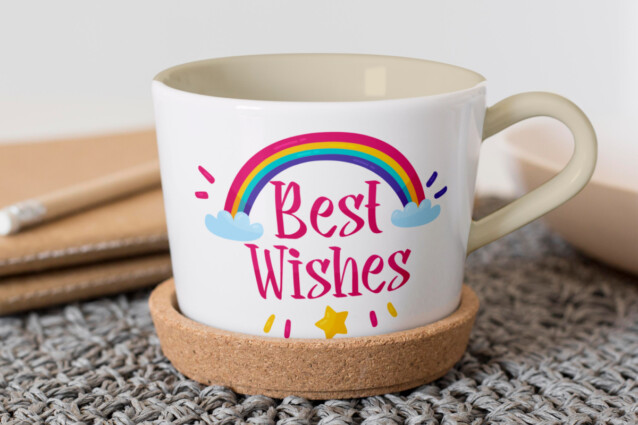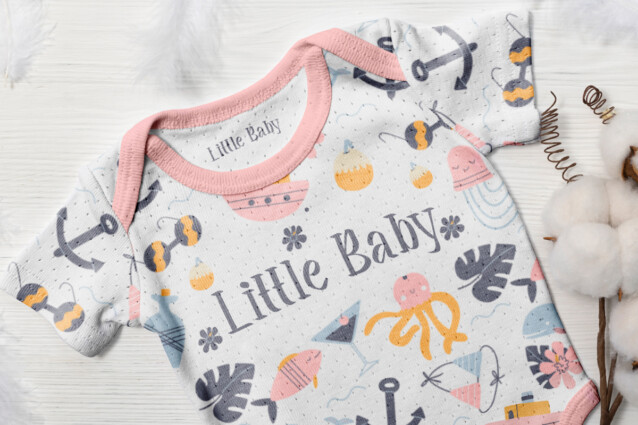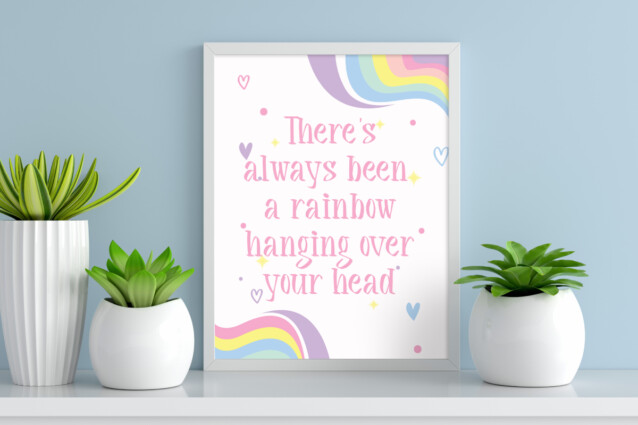
Rainbow Again Font
Rainbow Again Font is a cute display font by NoahType. This font has a beautiful and thin shape that gives stunning looks. This font will suit many designs, such as brand image, business card, cartoon, catalog, comic, cover, custom design, invitation, label, menu, poster, quote, stationery, web, and more!
Rainbow Again Font includes full set of Uppercase and Lowercase Basic Characters, Numerals and Punctuation. The characters of this font will give soft and cute appearances and perfect choice for many industries, such as advertisement, café, event organizer, fashion, food and beverage, kids stuff, movie, printing, publishing, etc